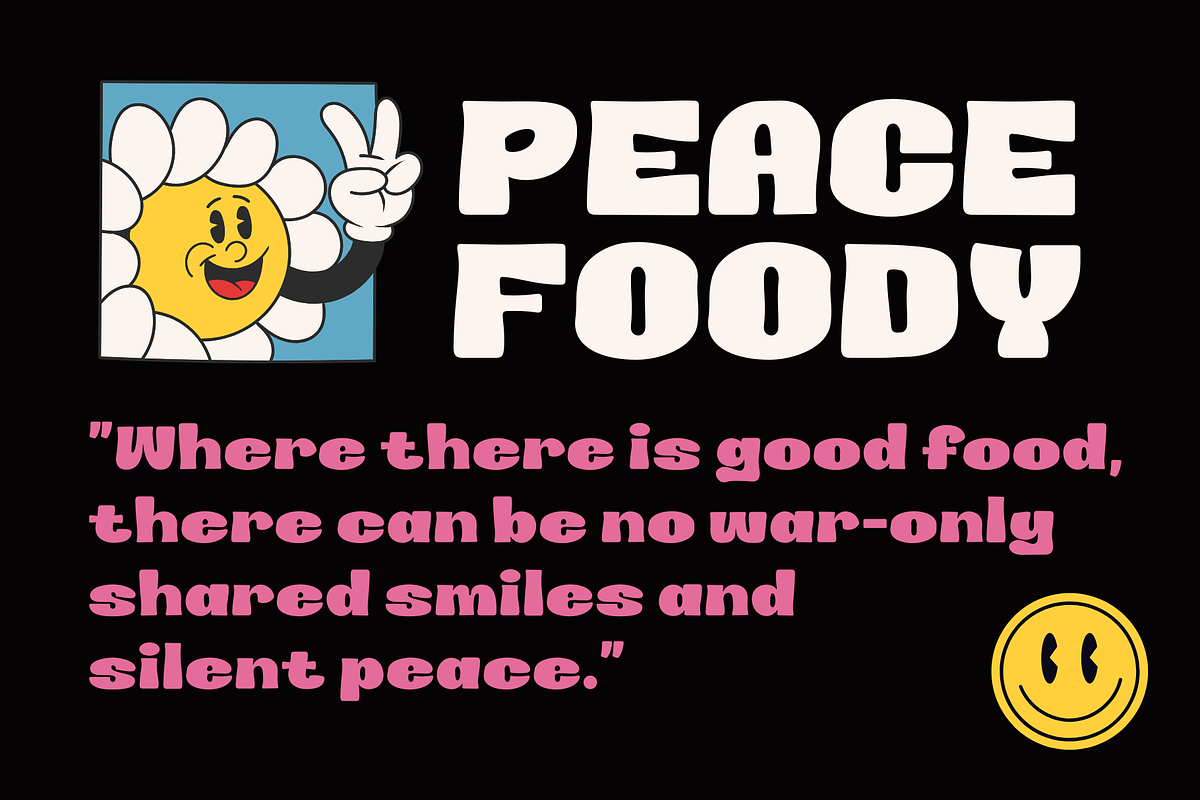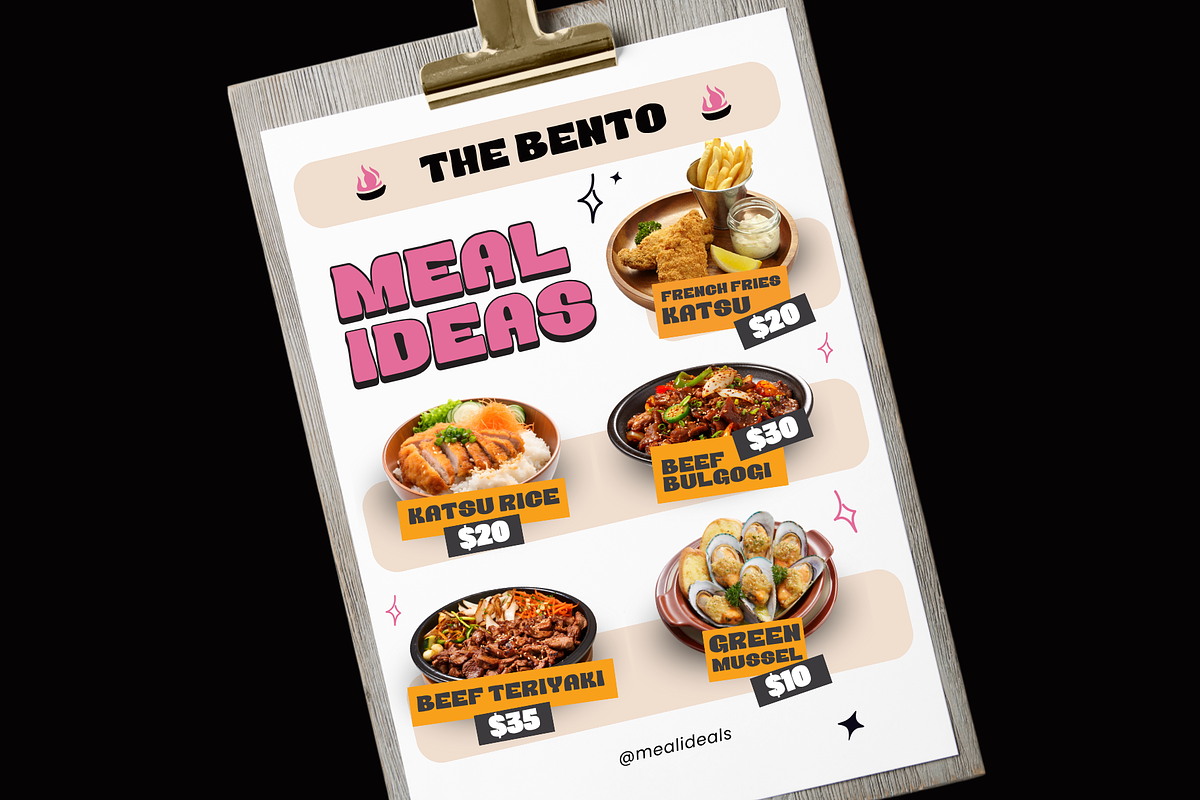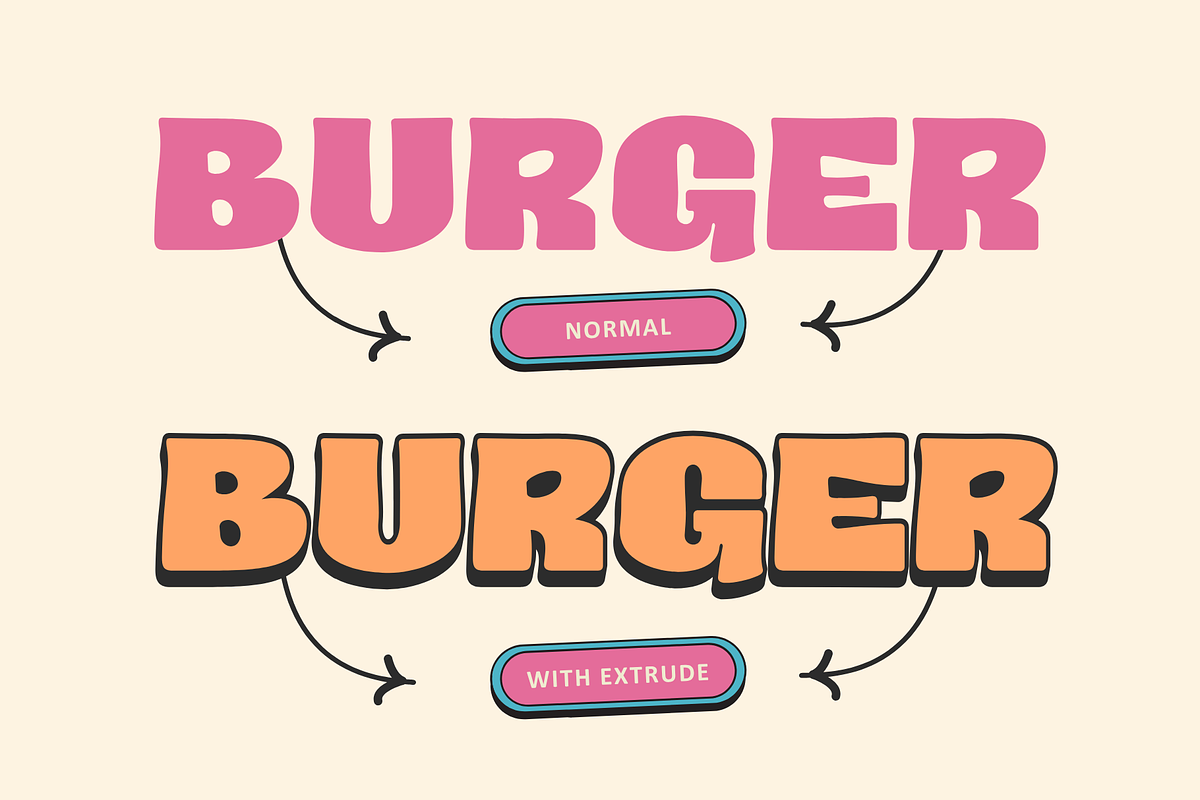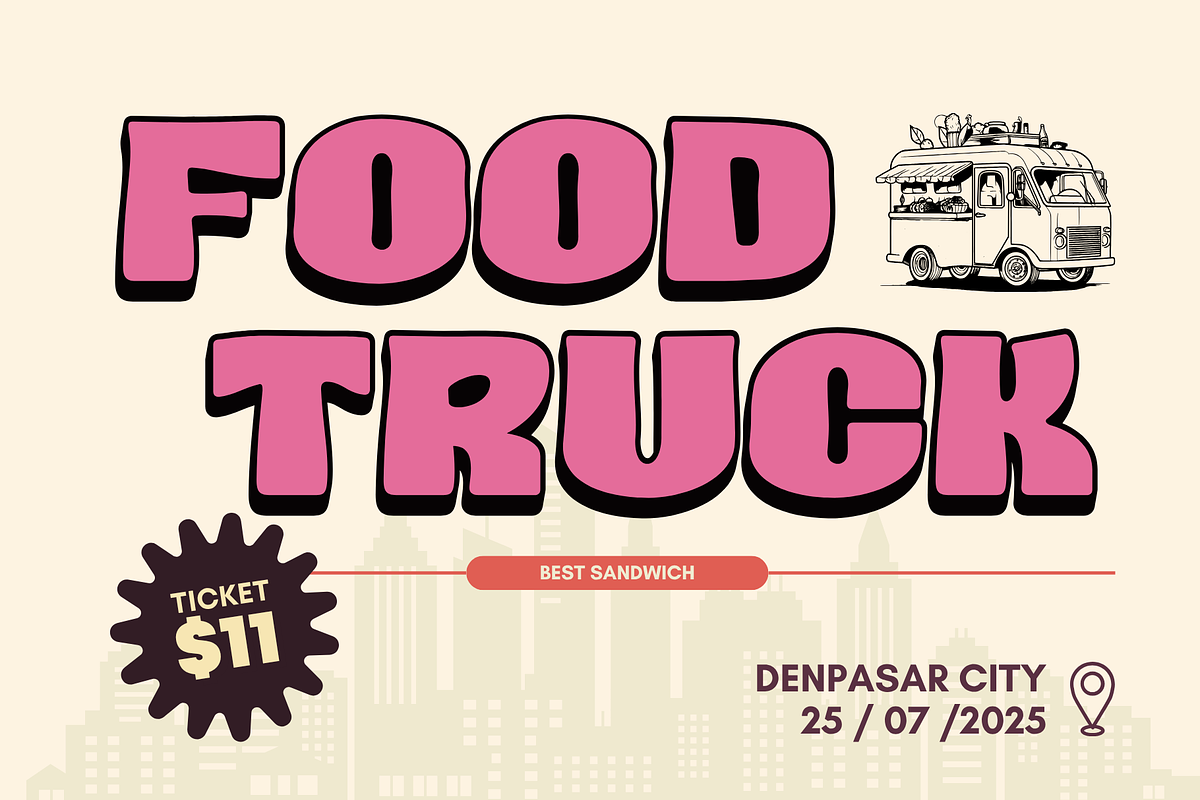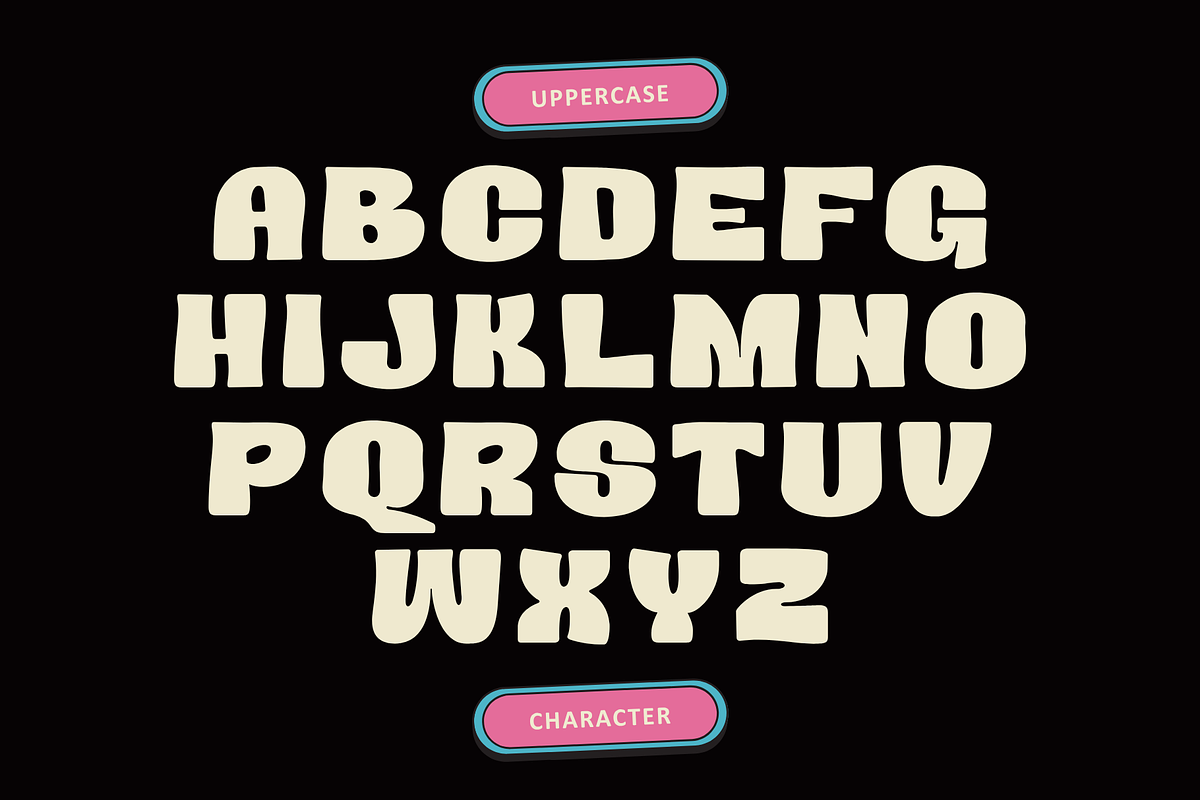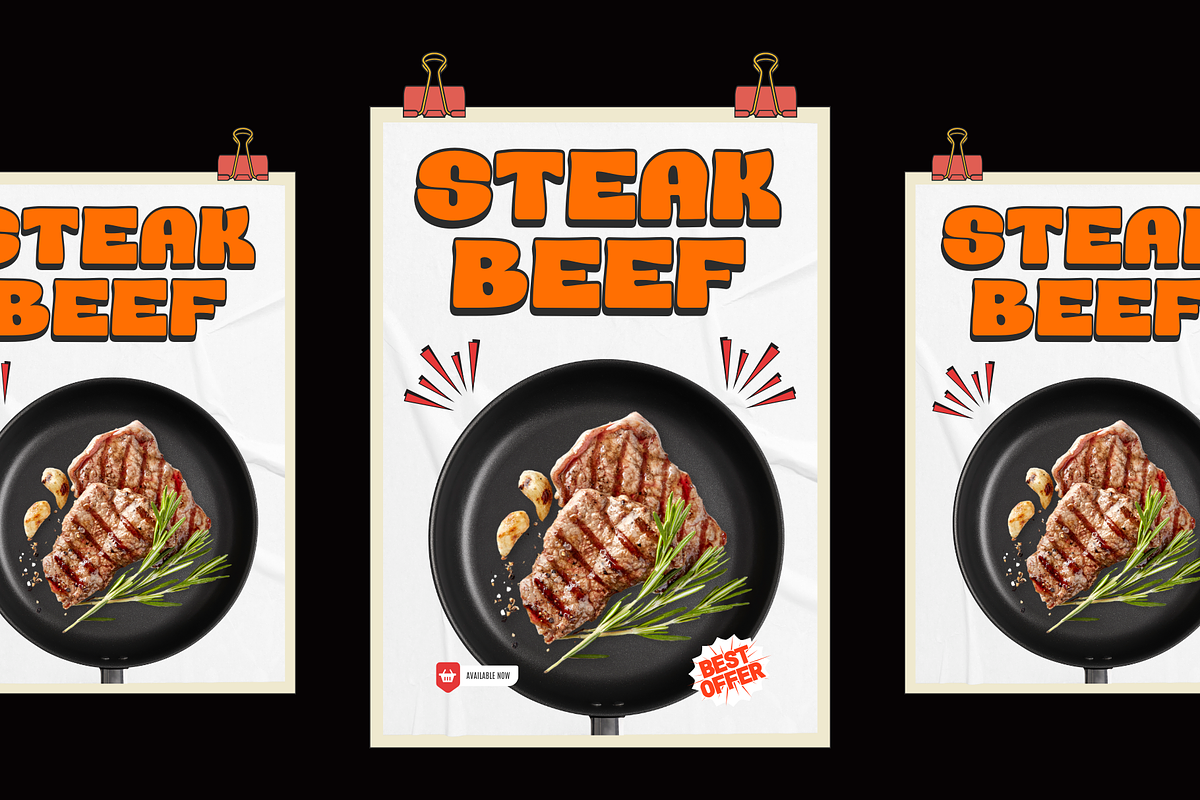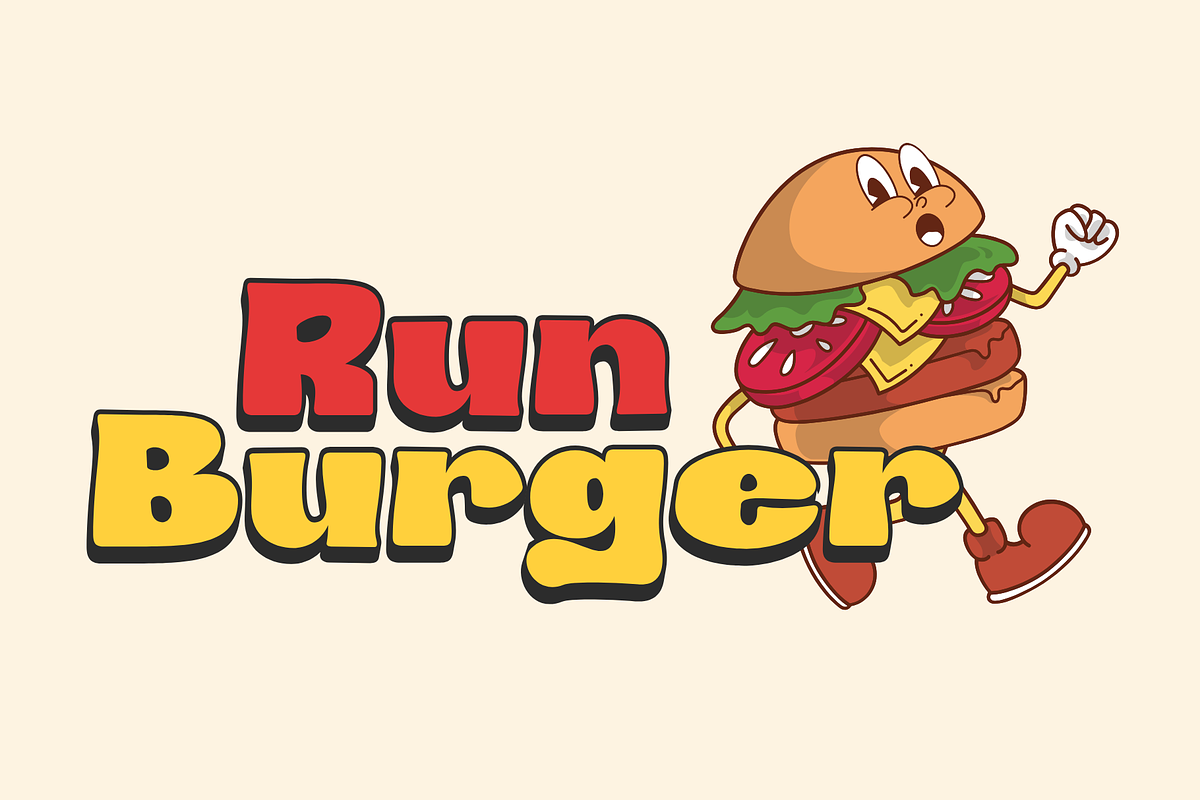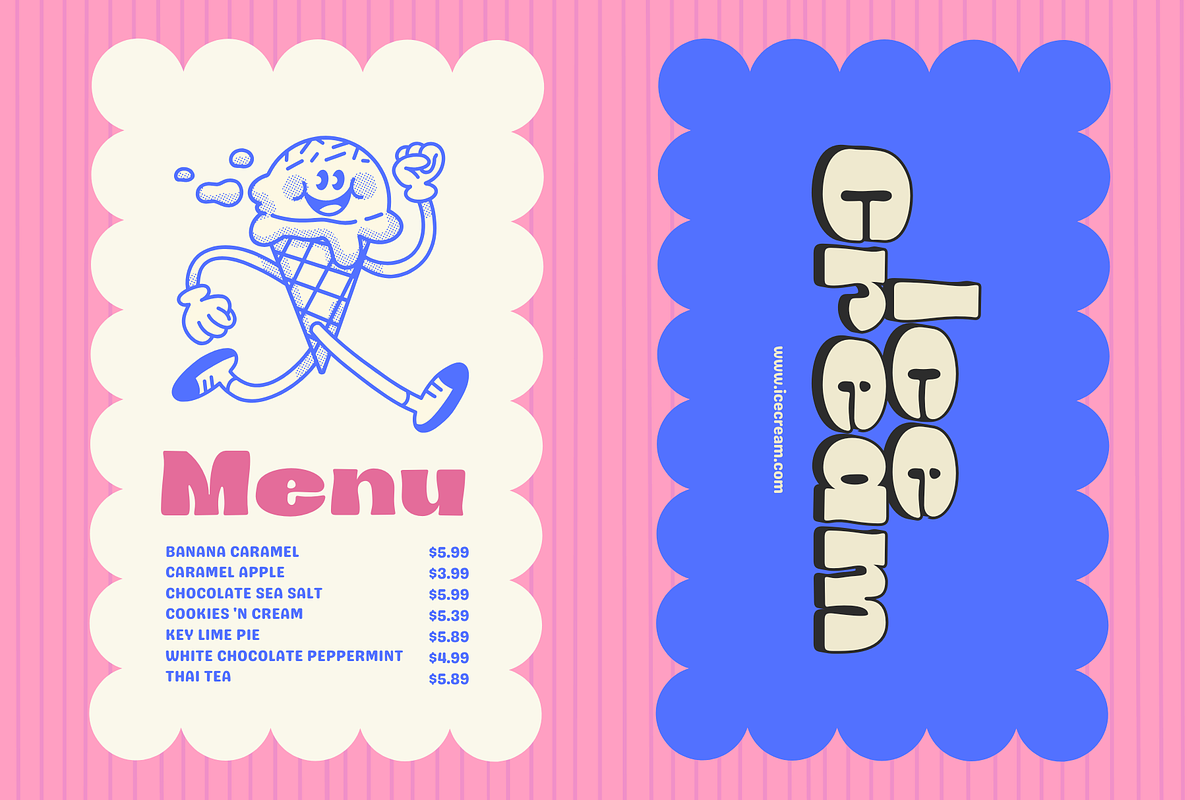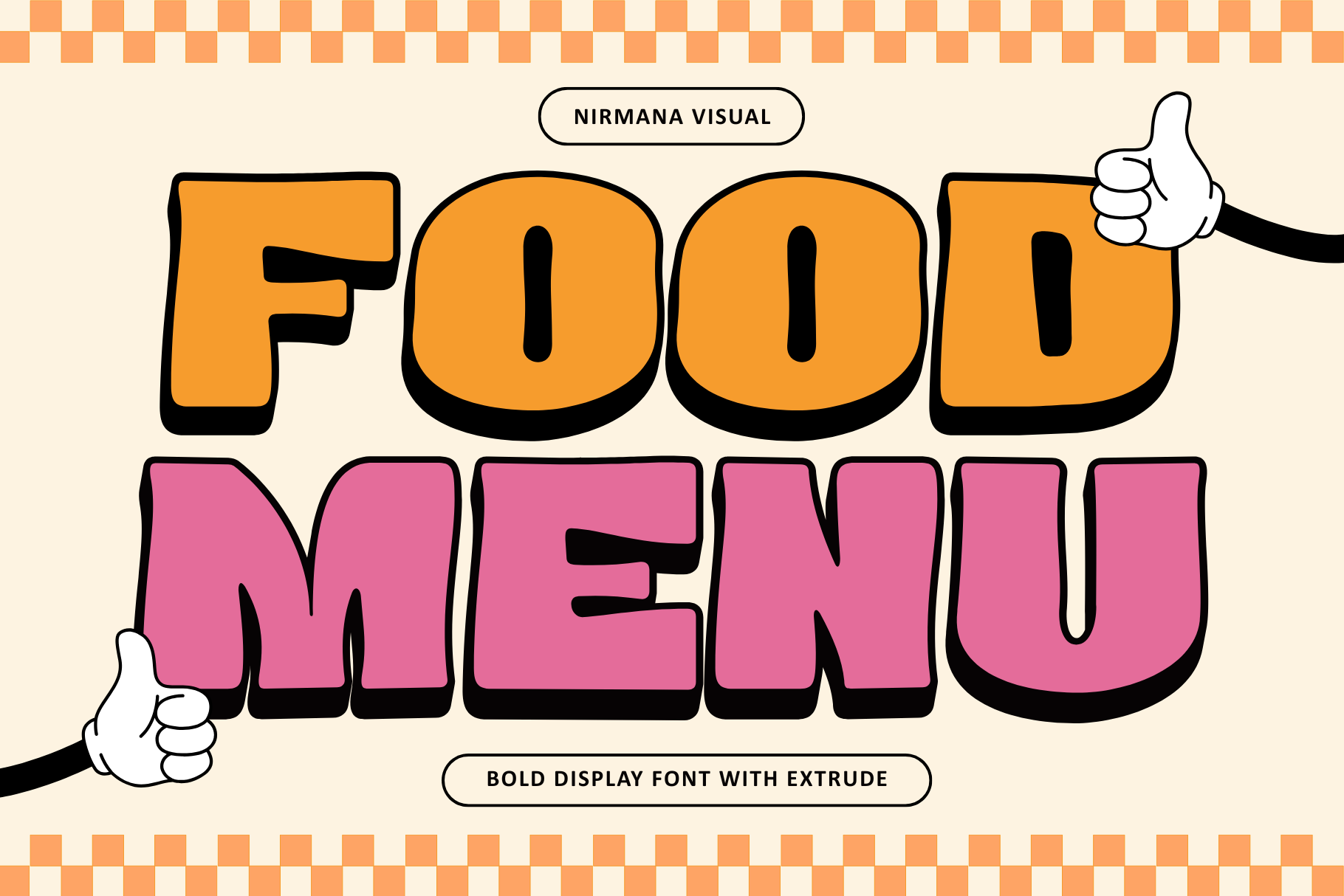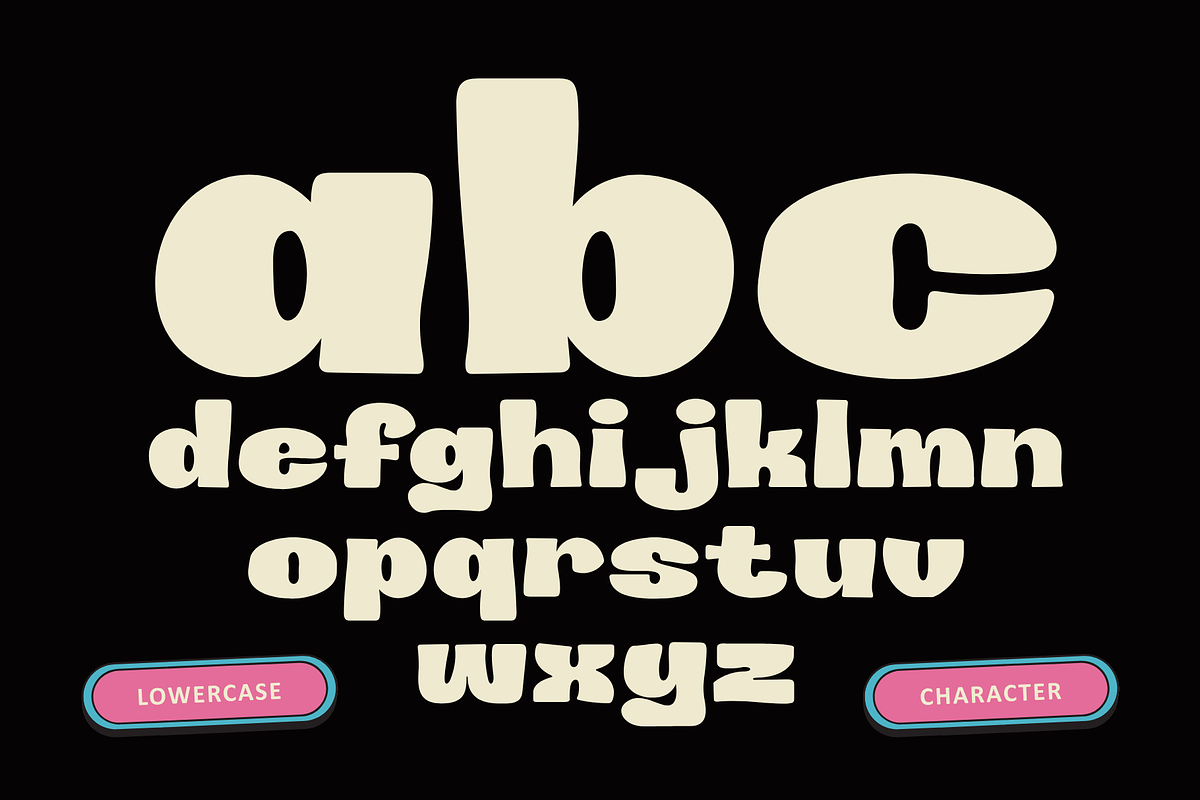
Food Menu - Bold Extrude Font
Food Menu is a bold and playful food-themed font designed to grab attention. With strong, chunky letters and a fun extrude style, it’s perfect for restaurant menus, food packaging, signage, and branding. Its boldness adds flavor to any design, while the extrude effect gives it a delicious 3D pop. Whether you're designing for a cafe, food truck, or cooking blog, Food Menu brings a mouthwatering charm that’s hard to resist.